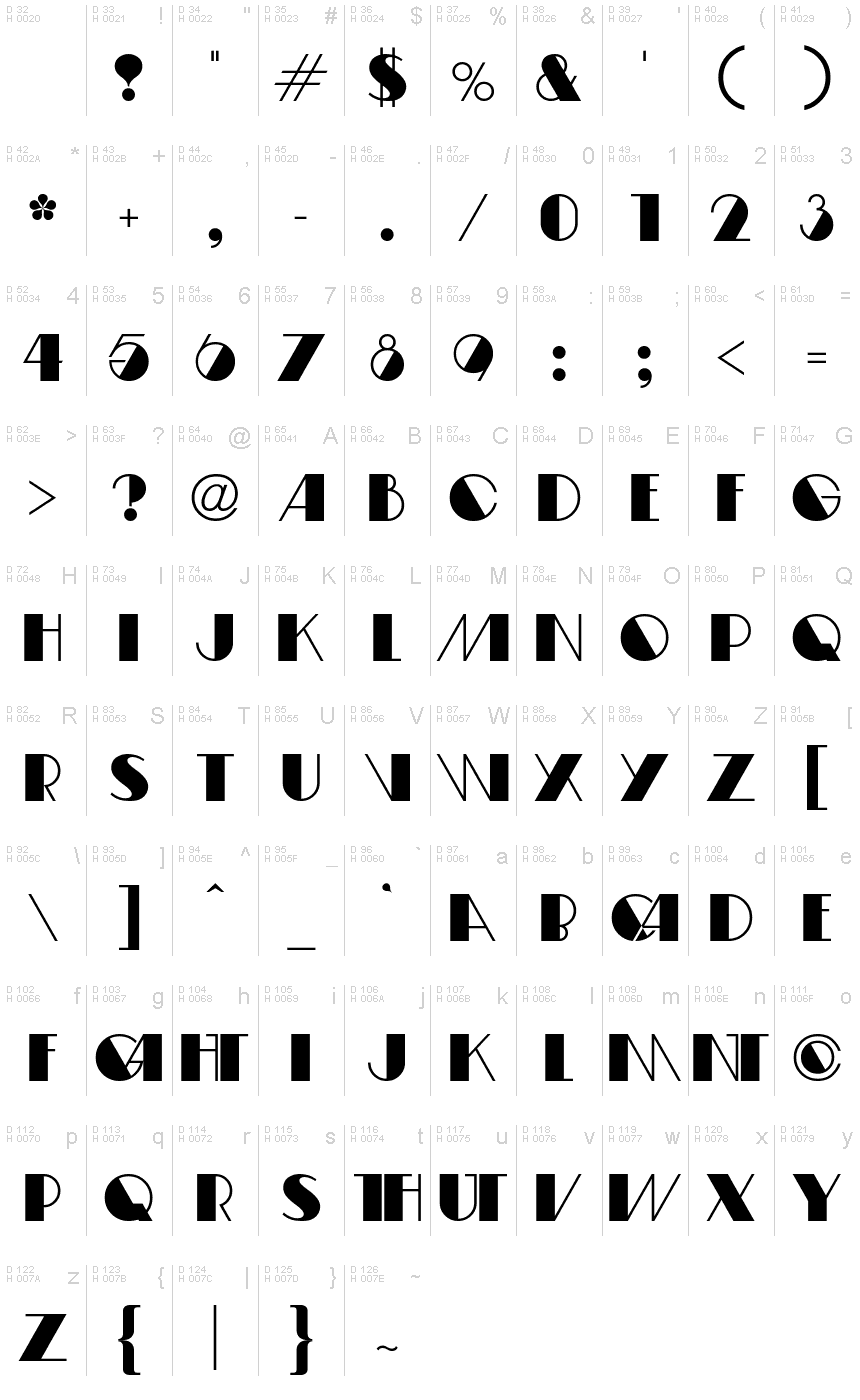
Fifty-Four DF
Fifty-Four DF is a stunning display font designed by Daylight Fonts. Its retro style and extra-bold weight make it the perfect choice for projects that demand attention, such as vintage posters, album covers, or advertising campaigns. The thick lines and unique shapes of this typeface will add a touch of nostalgia to any design. Whether you're creating a bold logo or eye-catching headlines, Fifty-Four DF is the perfect font to make your message stand out. So if you want to add some retro charm to your next project, give Fifty-Four DF a try!